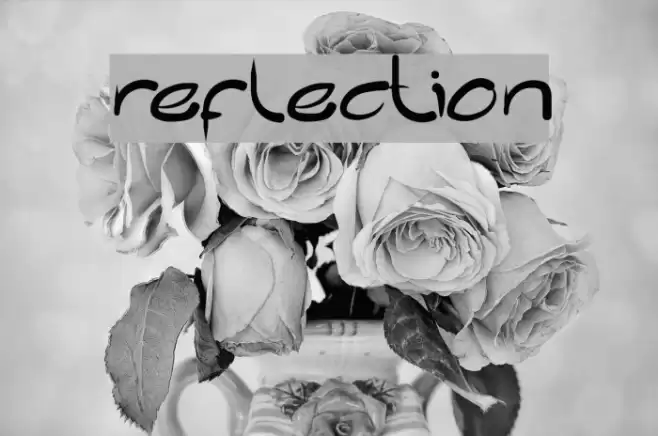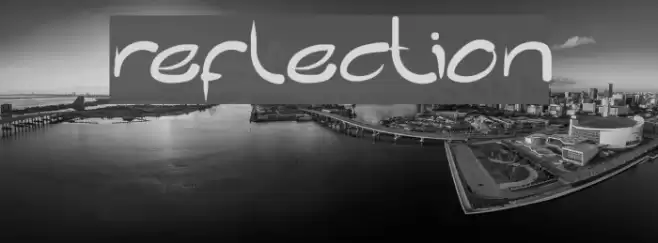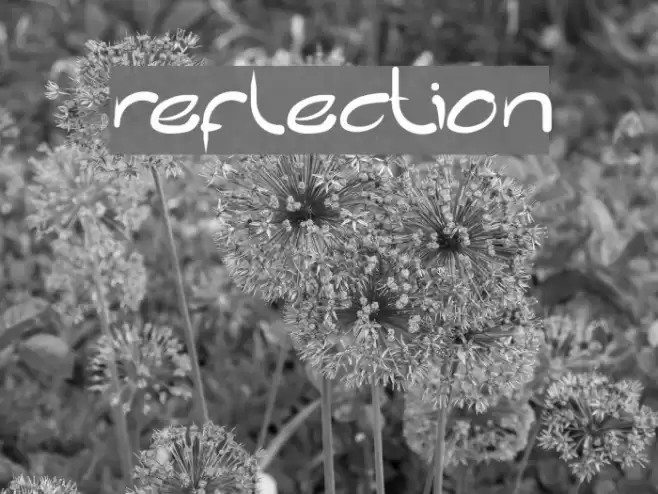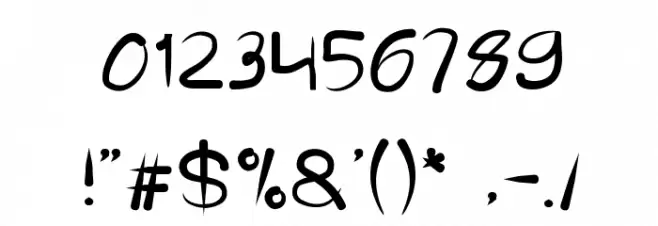
reflection Font
reflection Description
This font features a unique and artistic style with a modern twist. The characters are fluid and dynamic, with a playful yet sophisticated appearance. The strokes are smooth and slightly elongated, giving the letters an elegant flow. The uppercase and lowercase letters maintain a consistent style, while the numerals and special characters complement the overall design. The font's distinctive look makes it suitable for creative projects that require a touch of personality and flair.
A modern, artistic font with fluid, dynamic strokes and a playful elegance from Uncategorized fonts.
- Proposed Projects: Ideal for branding, posters, invitations, and any creative project that seeks to stand out with a unique and artistic flair.
- Overall Style: Modern, Artistic